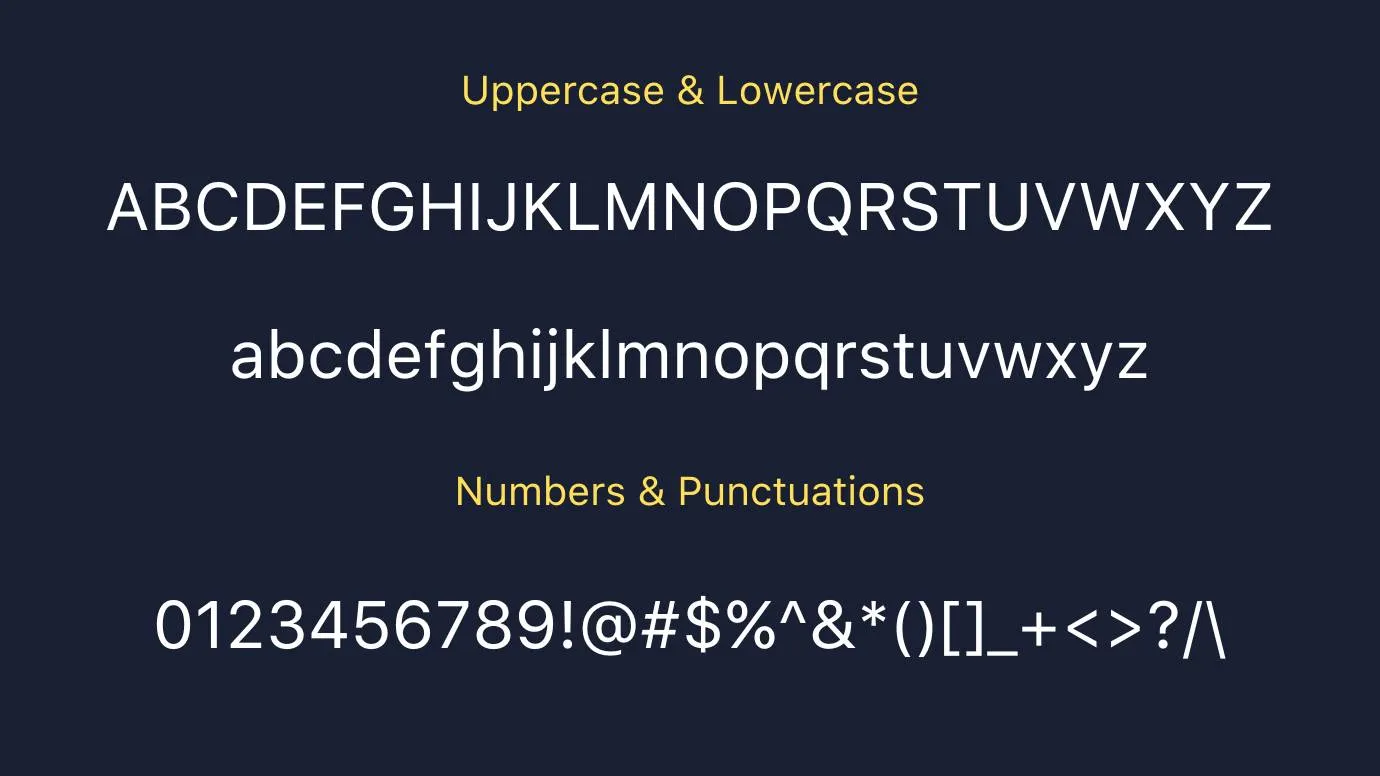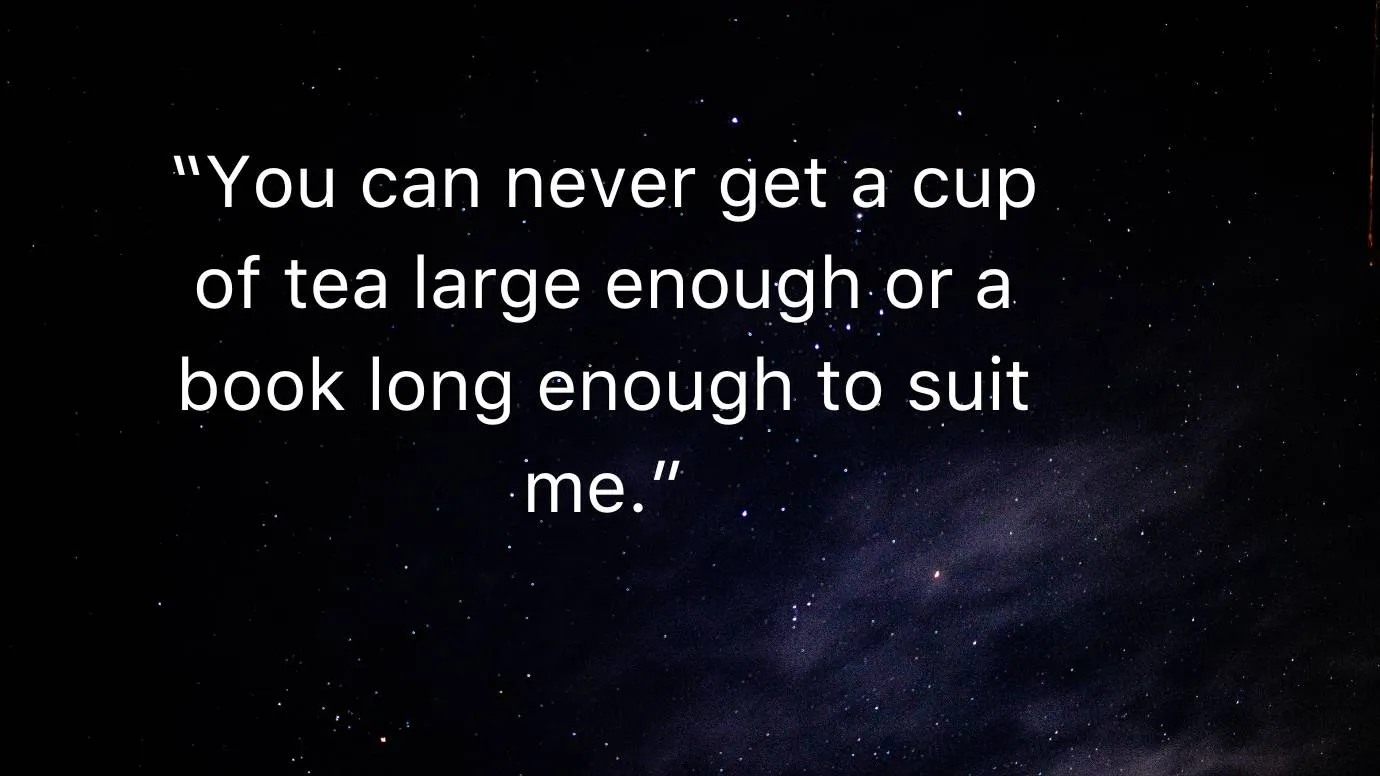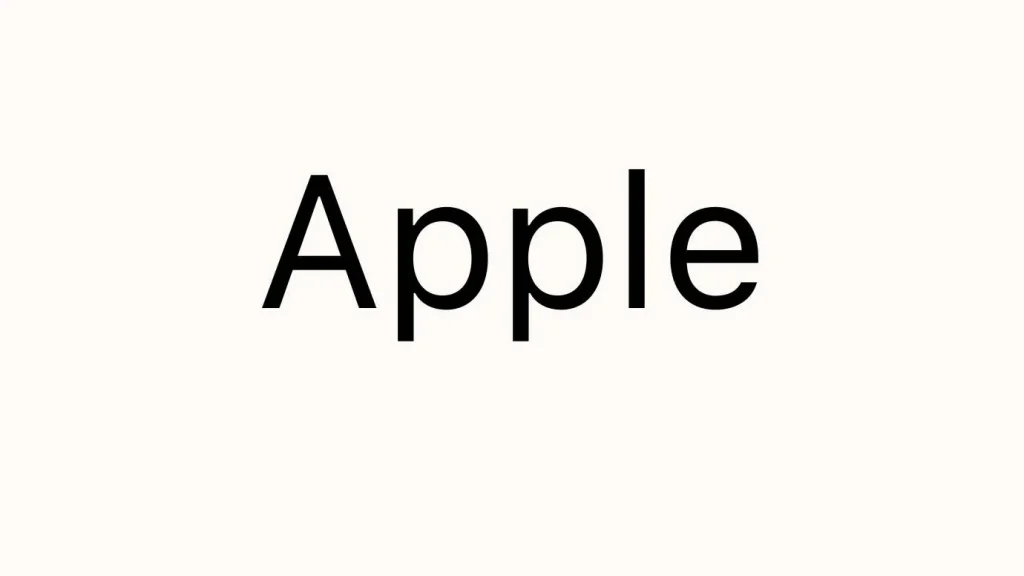
Apple Font style has capital letters, small punctuation, special characters, glyphs, and numerals 0 to 9 are all available in this font. This attractive and amazing design is nicely created by the well-known foundry Zeb. Apple font has a sleek and versatile look that has fancy character sets.
Each character of the style differs in appearance and personality. It has nice and elegant characteristics that are needed to design trendy content. There are 220 fascinating glyphs and more than a hundred fashionable characters included. You can create this font with a thick texture online by using the generator tool. The typeface has both OTF and TTF file formats.
With this typeface, you can create a professional logo, heading, or branding. This beautiful typeface is helpful for crafty designs. The lovely font is beneficial for various social media post designs. You can utilize this beautiful typeface for various quality card designs.
| Name | Apple Font |
| Designer | Zeb |
| Style | Retro |
Usage of Apple Font in Brands
You can see from a distance that it has a striking and refined style. It is ideal for showcase projects because of this quality. Both large-screen and small-screen productions can make use of it. Every text design and internet project can use this style to make perfect content.
You may construct webpages and make thumbnails for your YouTube channels. Mexon font is the perfect pairing style to make new designs for clients.
The style is ideal for many different things, including titles, headings for assignments, social media postings, symbols, graphic designs, text, certificates, report cards, and many more. Use Canva to make new and interesting designs for your upcoming project.
In addition, it can be utilized in television shows, posters, magazines, T-shirt designs, books, home decor designs, fabric designs, invitation cards, birthday cards, wallpapers, newspapers, flyers, catalogs, banners, layouts, and more.
With this typeface, you can create a professional logo, heading, or branding. This beautiful typeface is helpful for crafty designs. The lovely font is useful for creating various social media post designs. You can utilize this beautiful typeface for making various quality card designs.
What type of Apple Font is it?
It is the text style that has the ability to make new and creative designs.
Who designed Apple Font?
This attractive and amazing design is nicely created by the well-known foundry Zeb.
Where to use Apple Font?
It is ideal for creating many different things, including titles, headings for assignments, social media postings, symbols, graphic designs, and many more.